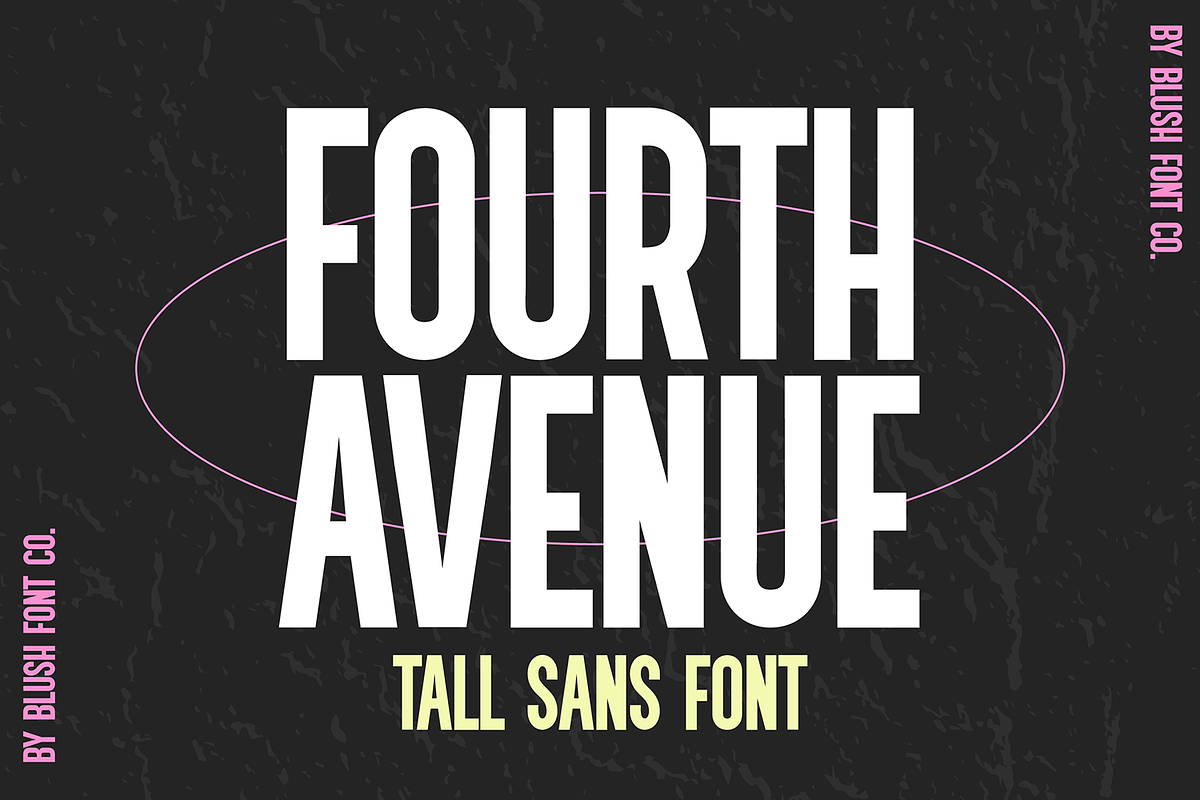
FOURTH AVENUE Tall Sans Serif Font Free Download
FOURTH AVENUE Tall Sans Serif Font Free Download is a sleek and modern typeface designed for high-impact visuals. With its tall, clean lines and strong presence, this font is perfect for bold headlines, logo design, editorial layouts, branding, and signage that require a modern yet minimalist aesthetic.
The tall form and geometric structure make it an excellent choice for both digital and print designs. FOURTH AVENUE includes uppercase and lowercase letters, punctuation, multilingual support, and is fully compatible with both Mac and Windows systems.